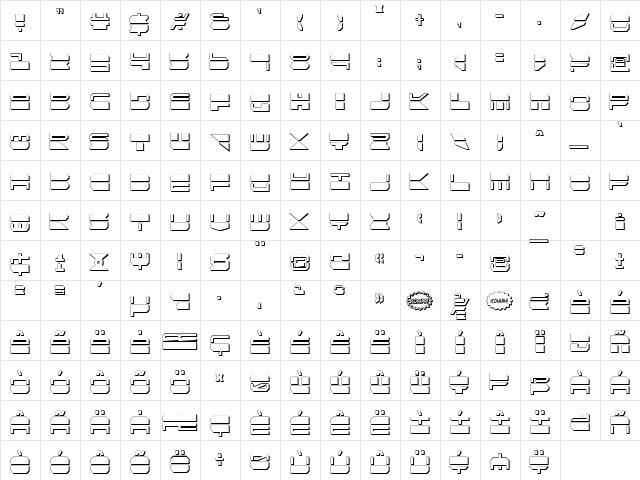
Quickmark Condensed Shadow Condensed Shadow
Design Context for Quickmark Condensed Shadow Typeface
Quickmark Condensed Shadow is built around its visual character rather than neutral utility — its distinctive forms are designed to make an impression at display sizes.